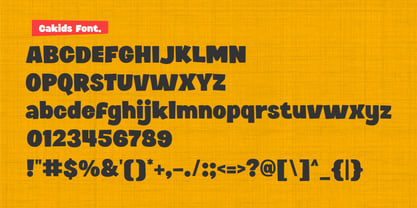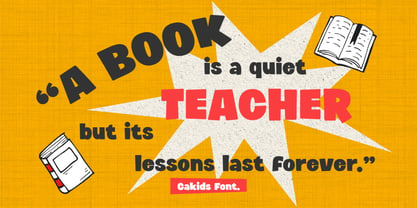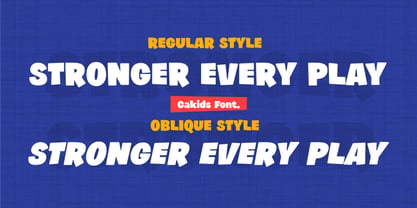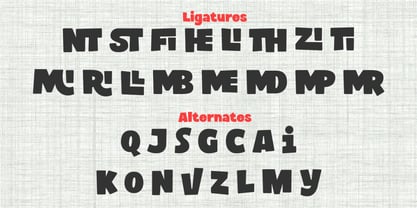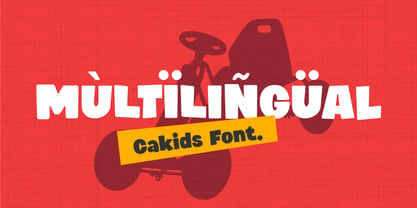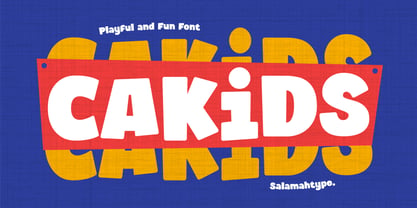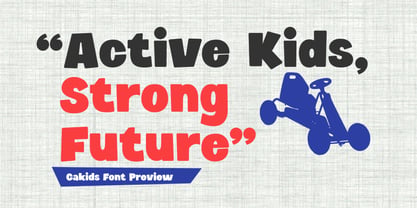
Cakids
by Salamahtype
The Cakids Font Family was designed by Aswangga Sadike and published by Salamahtype. Cakids contains 2 styles and family package options. More about this family
Cakids is a cheerful and playful kids font characterized by bold, rounded, and friendly letterforms. This font infuses a fun, energetic, and creative vibe into any children-themed project. With its expressive shapes and lively curves, Cakids is also ideal for comic-style designs, imparting a joyful cartoon feel to your creations. Whether used for kids branding or comic-style graphics, Cakids brings a bright, imaginative, and happy personality to the forefront. **Features:** – Bold and playful characters – Comic-style feel with expressive shapes – Fun and friendly kids-inspired design – Easy-to-read, making it perfect for educational use – Great for large titles and headlines – Multilingual support **Perfect For:** – Kids fashion brand logos – Comic-style posters and cartoon titles – School and daycare materials – Children’s snack and toy packaging – Worksheets and learning pages – Kids-themed social media content
Designers: Aswangga Sadike
Foundry: Salamahtype